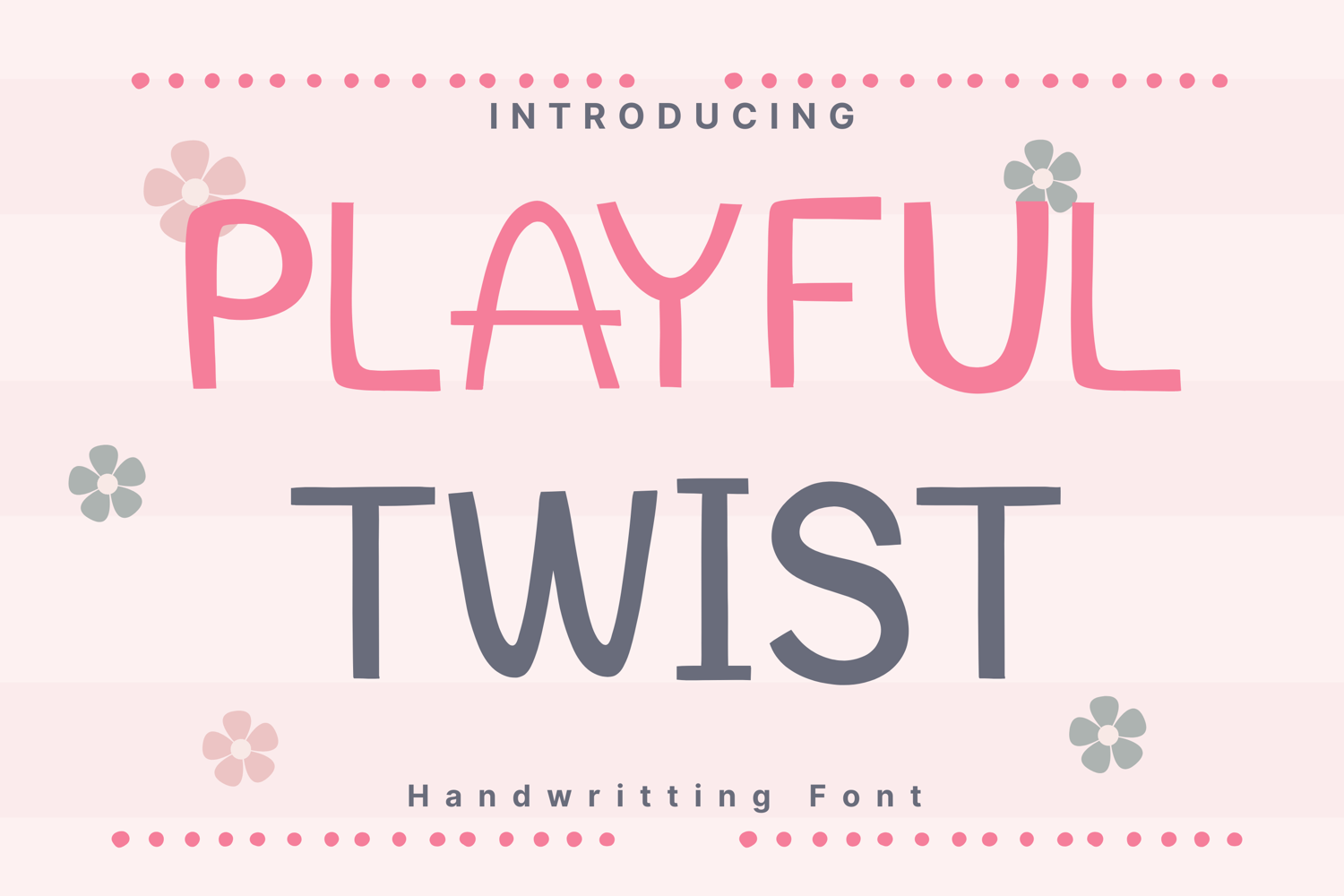
Playful Twist Style
Playful-Twist
Playful Sans Twist is a clean, friendly sans-serif font with a slightly quirky design. Its rounded yet varied letter shapes give it a casual, approachable feel, making it ideal for children’s books, classroom materials, comic-style projects, branding, and fun social media graphics. The font strikes a balance between readability and personality, perfect for both headings and body text.